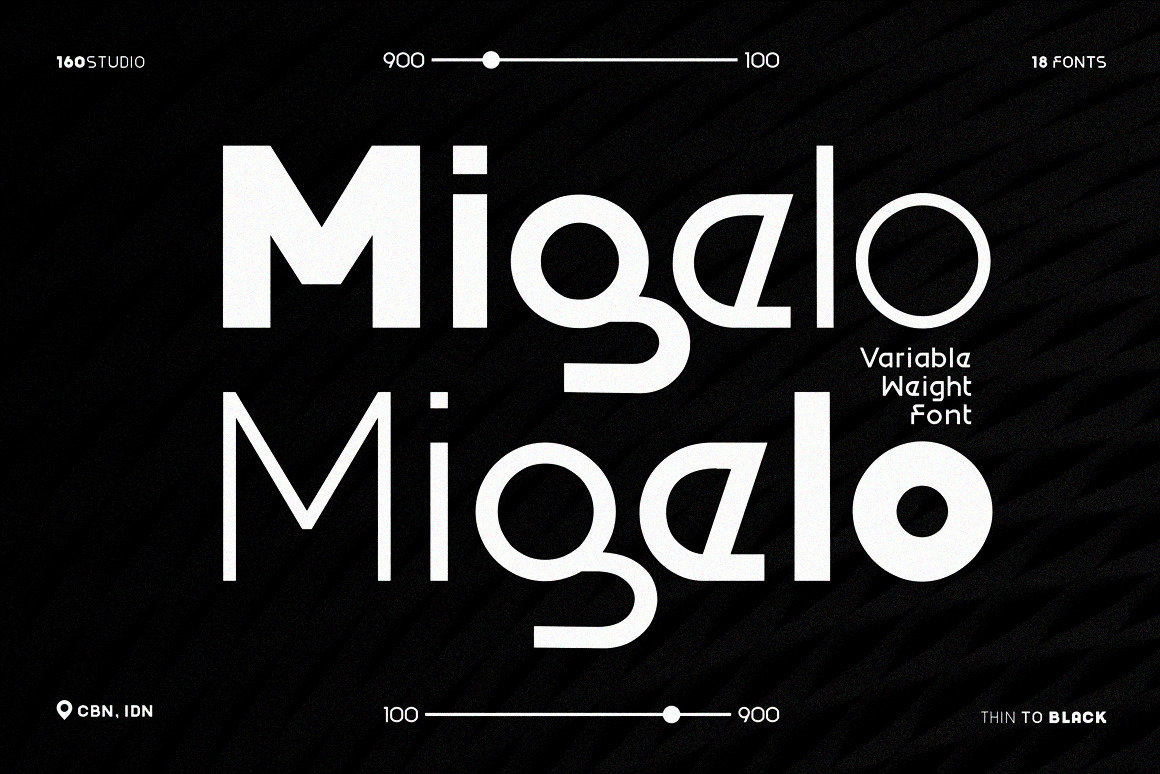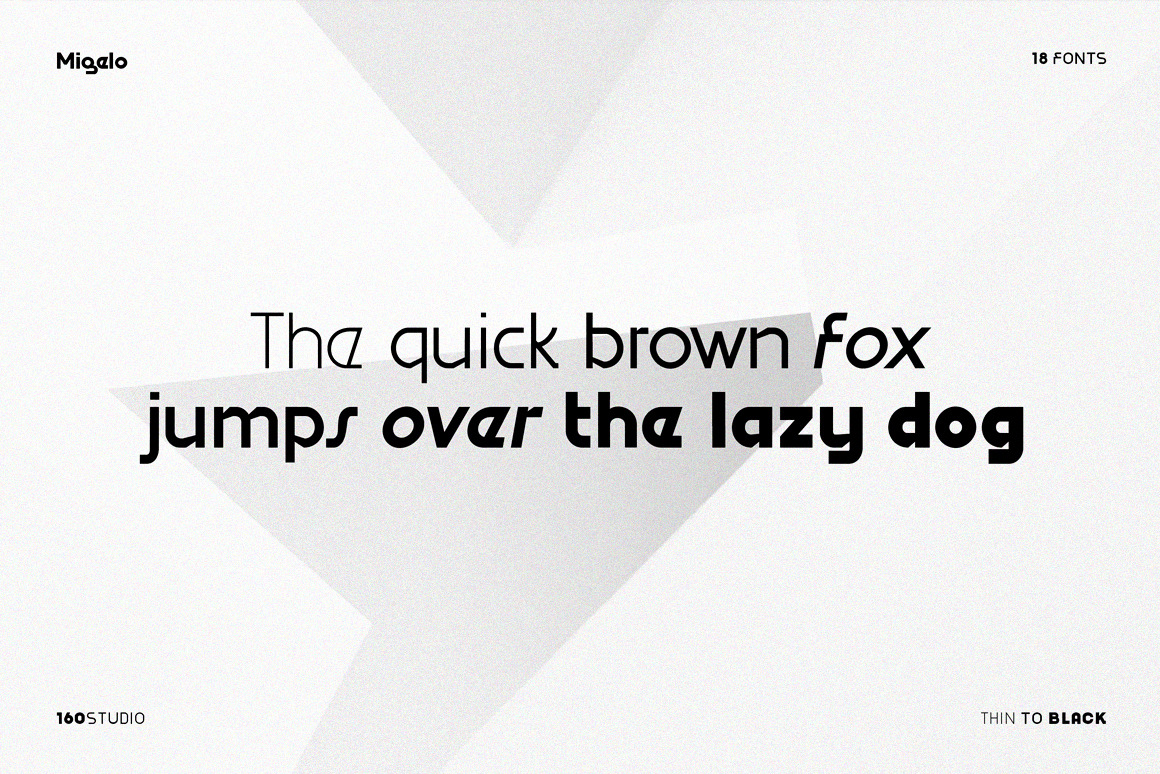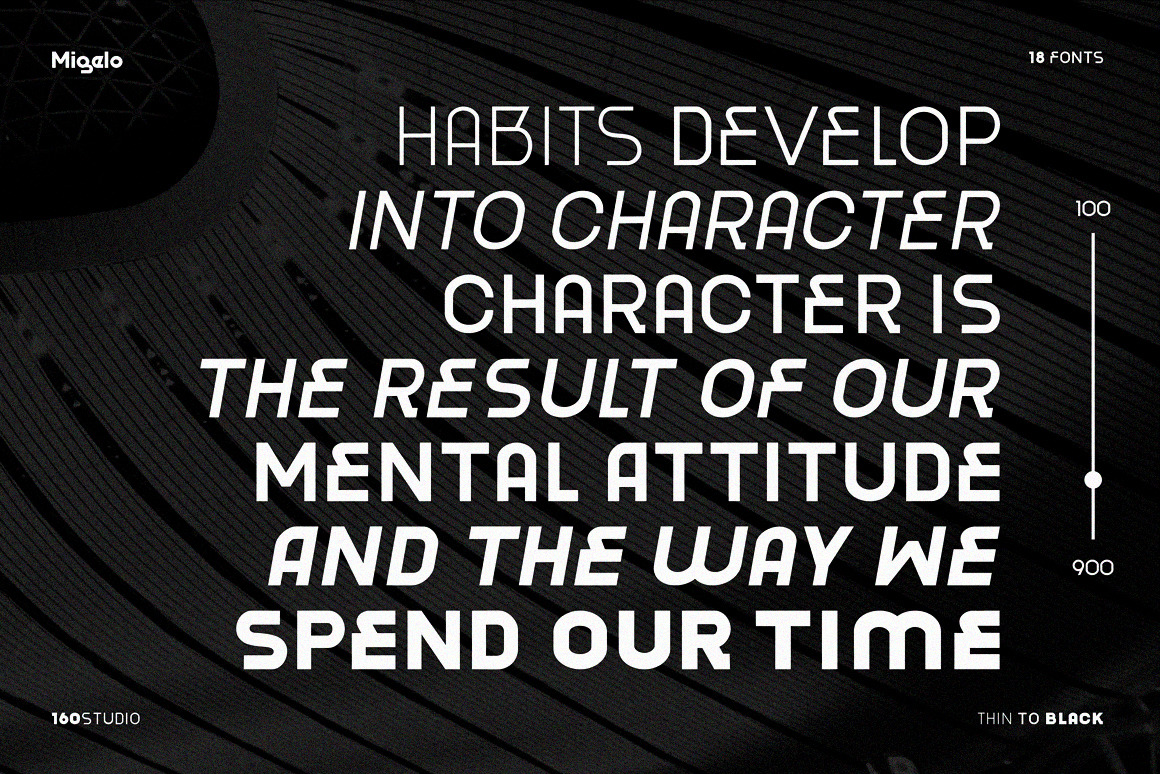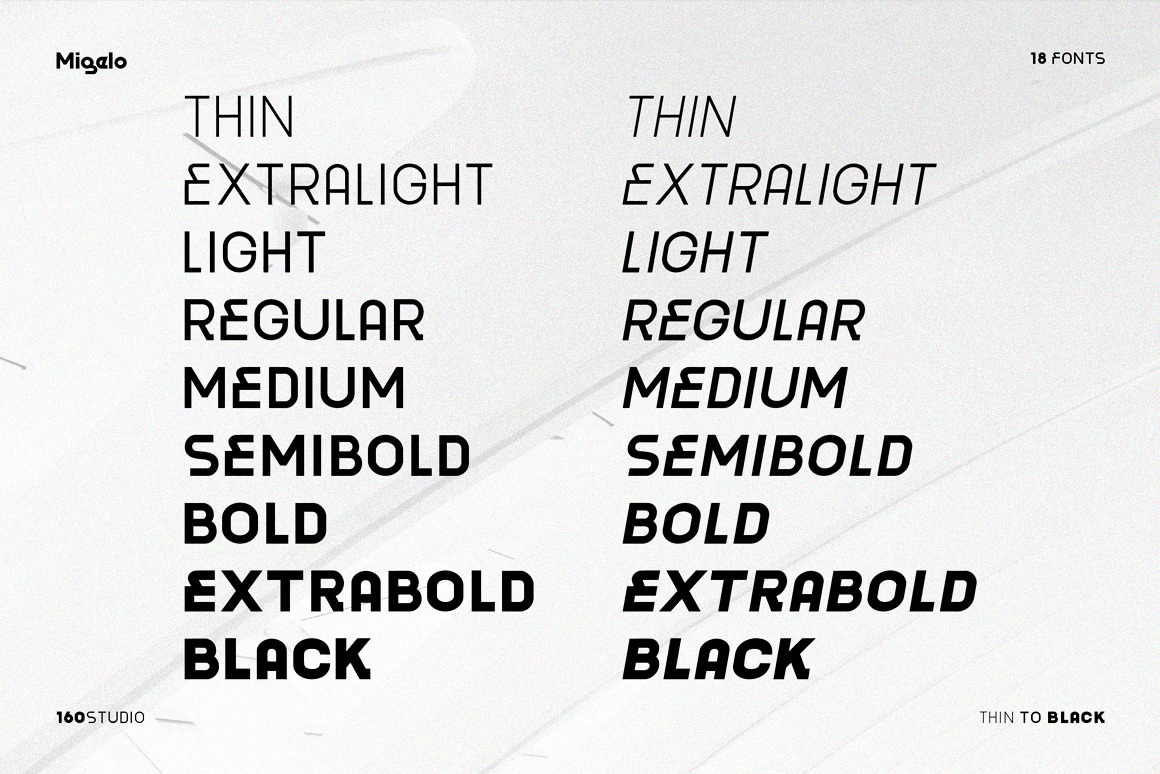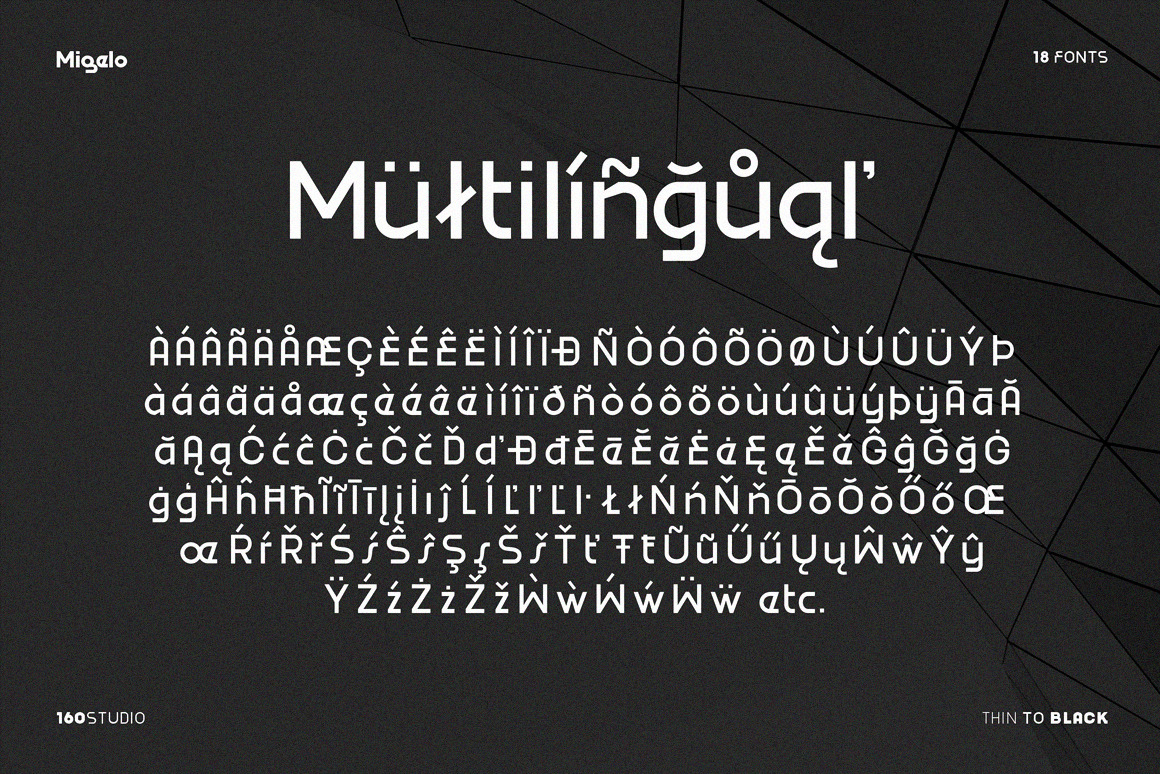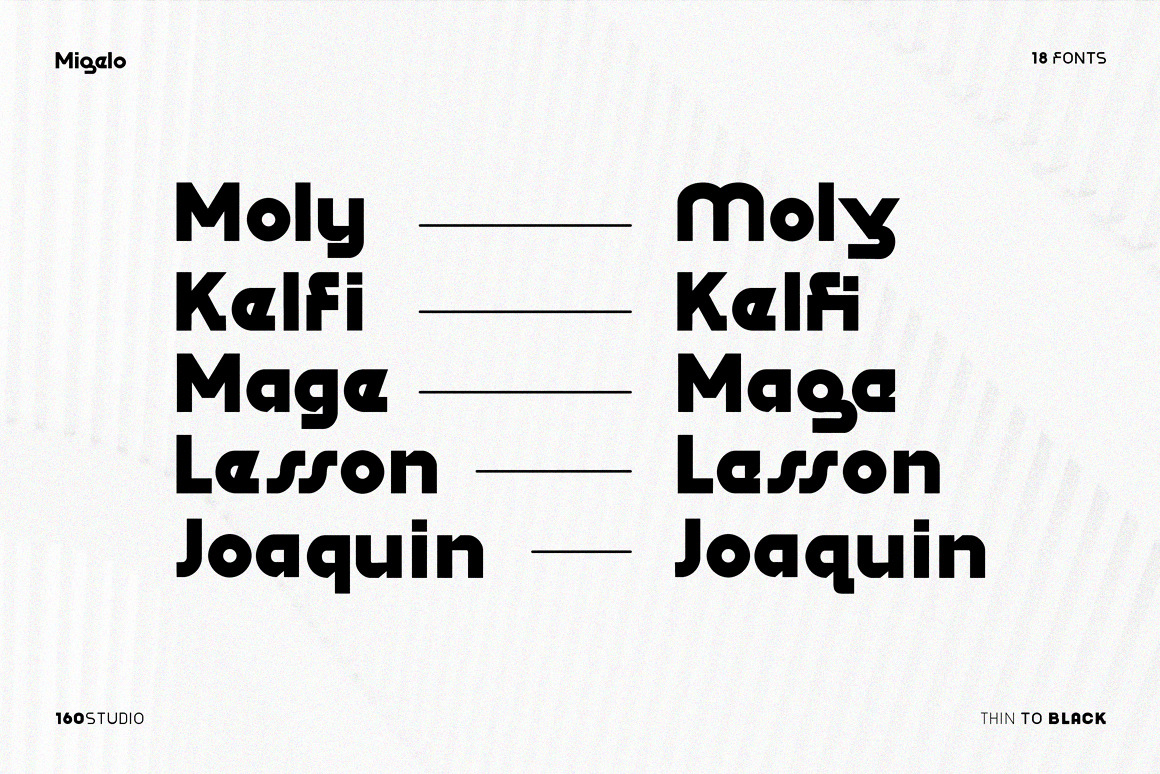
Migelo Font
Explore our meticulously crafted text display font, a versatile masterpiece designed with precision. With 9 variations ranging from the elegant thin to the bold black, and complemented by 9 thoughtfully created italic versions, this font provides a spectrum of choices for your creative expressions. Perfect for headlines, logo branding, quotes, posters, products, and more, this font effortlessly combines aesthetics with functionality, ensuring your designs make a lasting impact.
Elevate your visual storytelling with this dynamic text display font, designed to enhance your creative projects. From sophisticated headlines to eye-catching posters, its 9 variations and corresponding italics offer unmatched flexibility. Ideal for logo branding and product presentations, this font empowers you to craft a unique visual identity. Embrace creativity and stand out with this meticulously curated font that seamlessly blends style and substance, setting your work apart in the world of design.